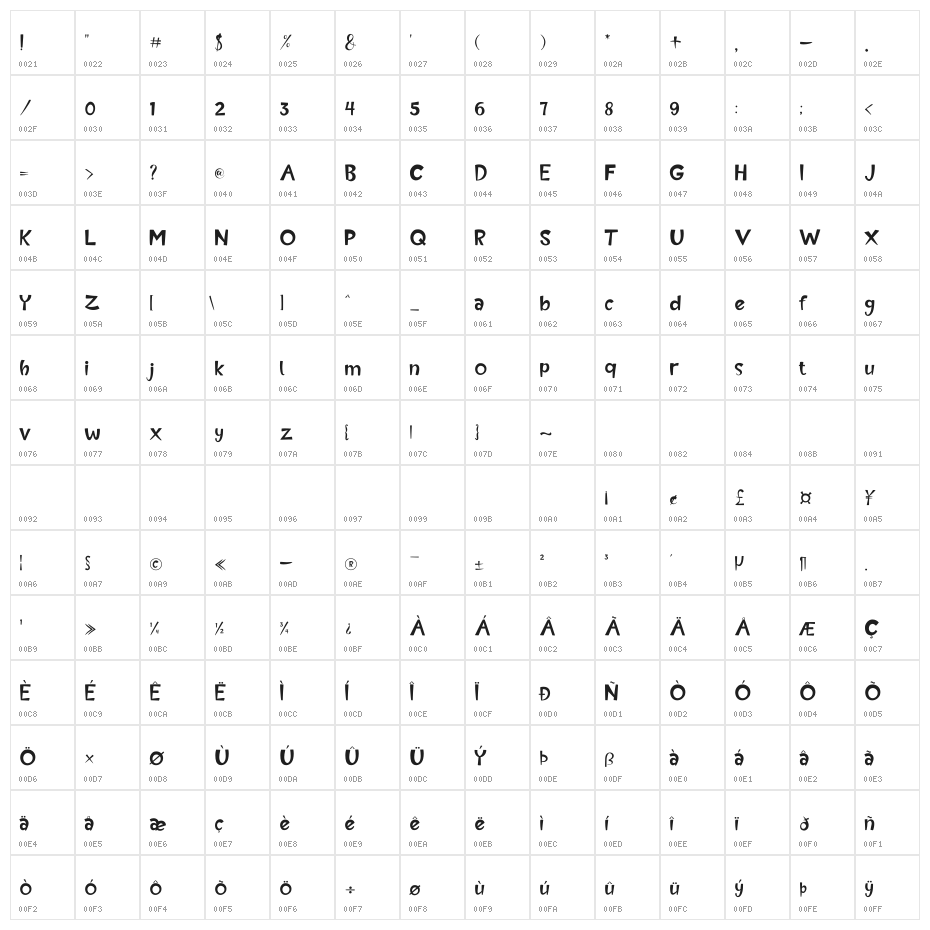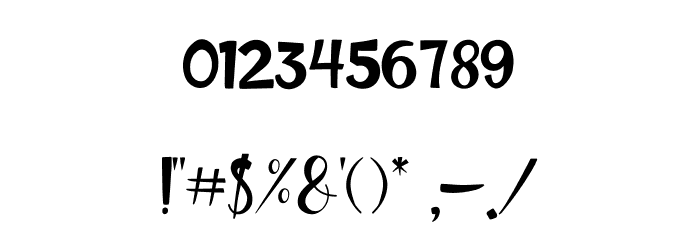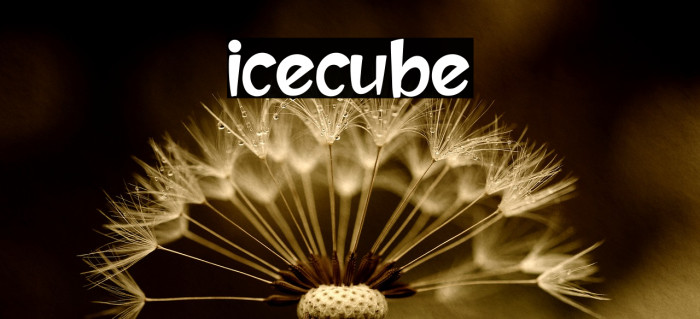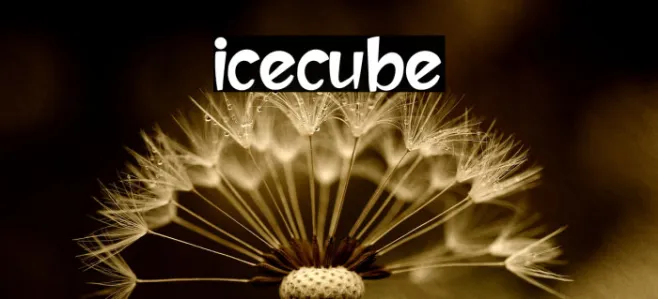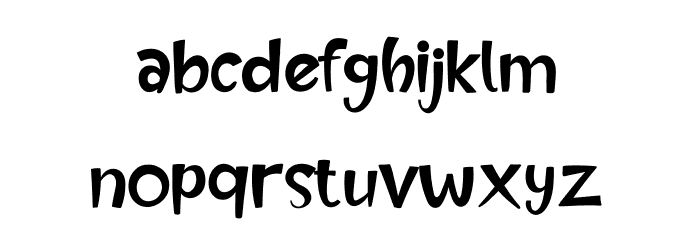
icecube Font
icecube Description
This playful and bold font features a whimsical style with exaggerated curves and a slightly uneven baseline, giving it a lively and dynamic appearance. The characters are wide and rounded, with a consistent stroke width that maintains readability while adding a touch of fun. The uppercase letters are particularly striking, with unique shapes that stand out, while the lowercase letters complement them with a softer, more approachable feel. The numerals and special characters follow the same playful design, making this font versatile for various creative applications.